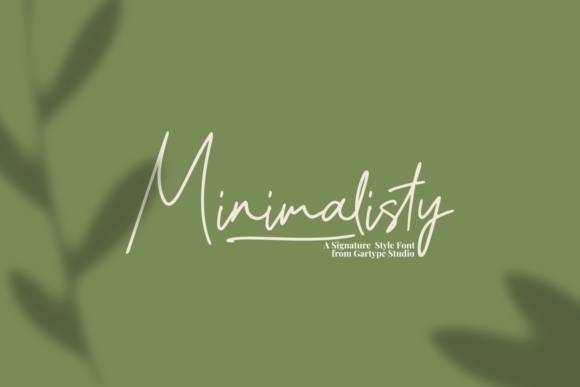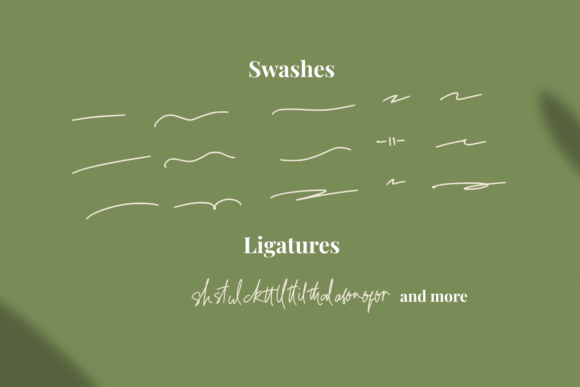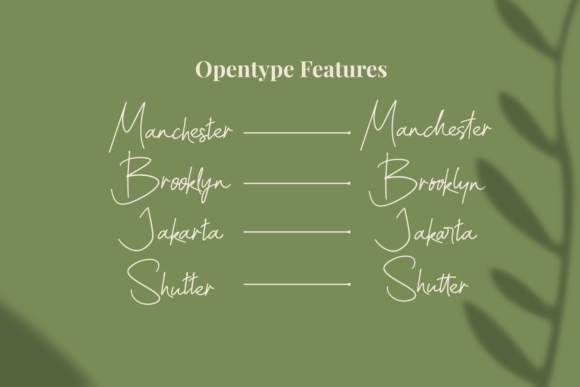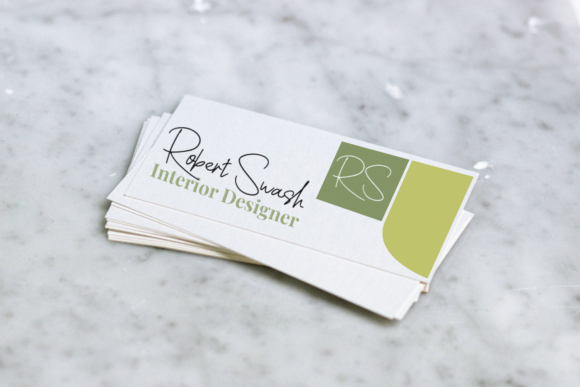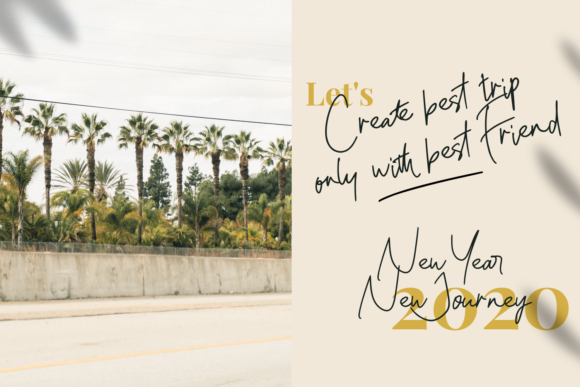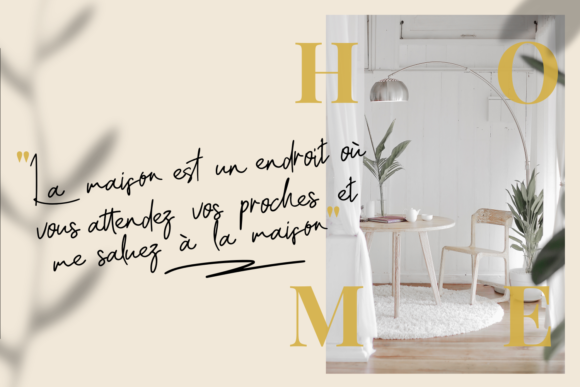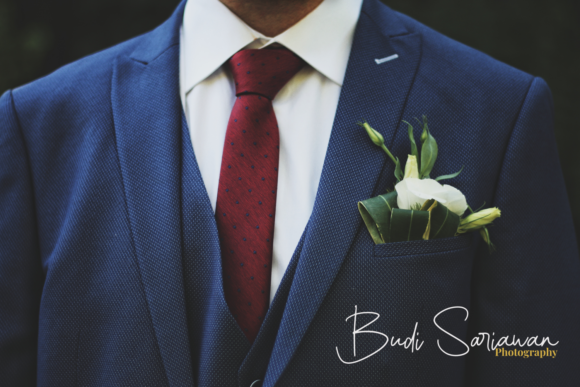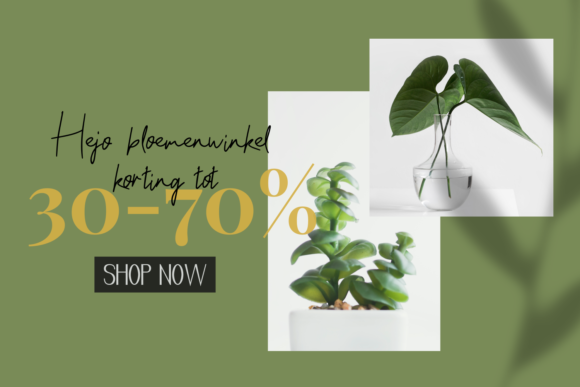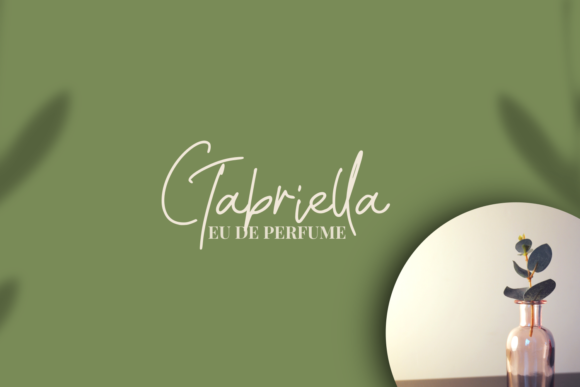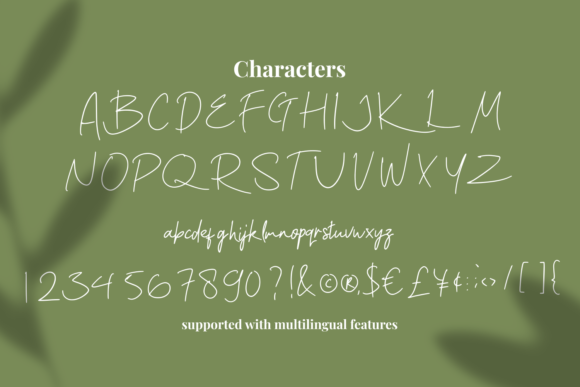
Minimalisty Font
Minimalisty features a gorgeous minimalist script style that will deliver any message with style. It will add that authentic vibe to any design project!